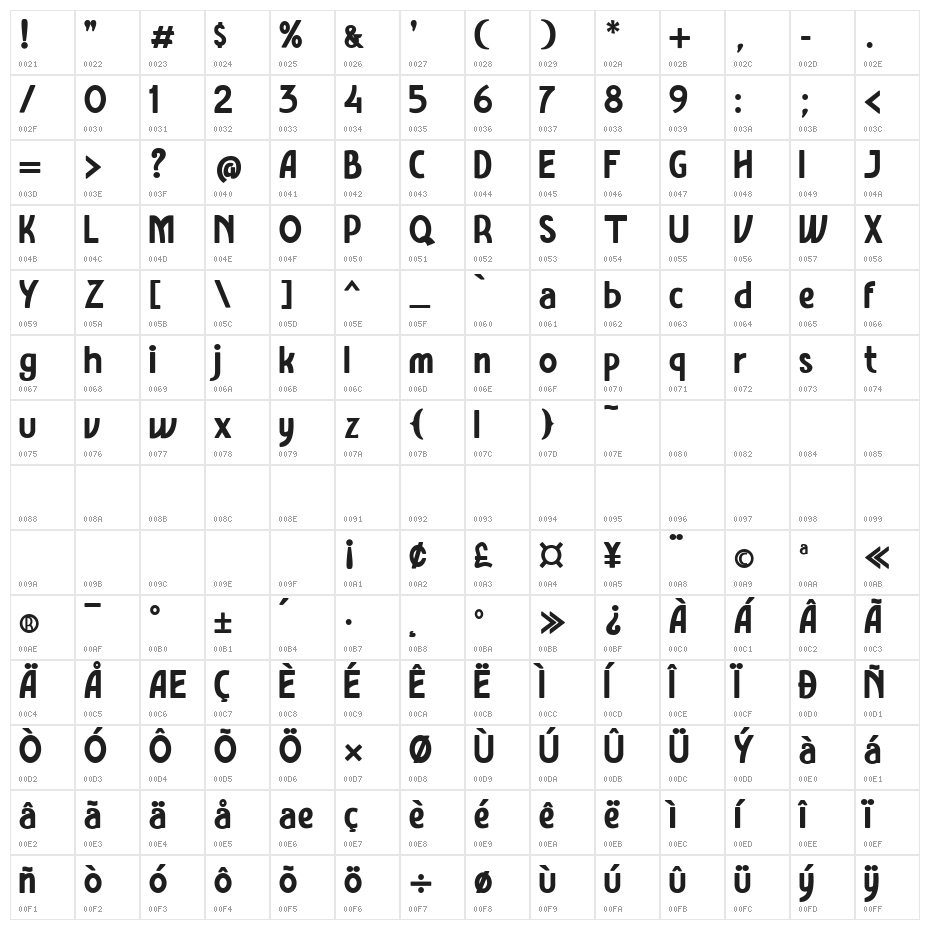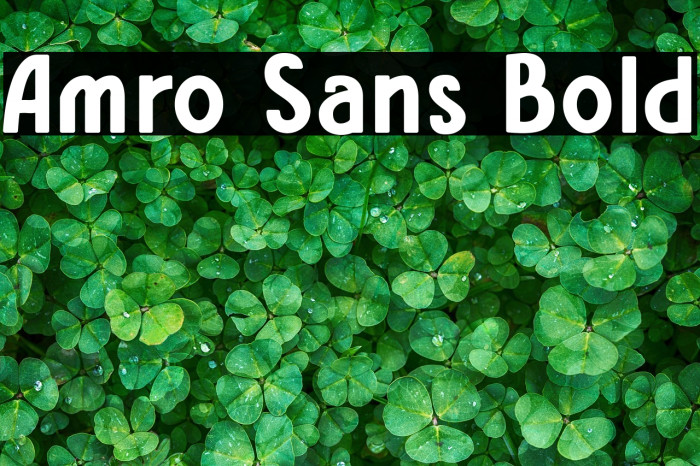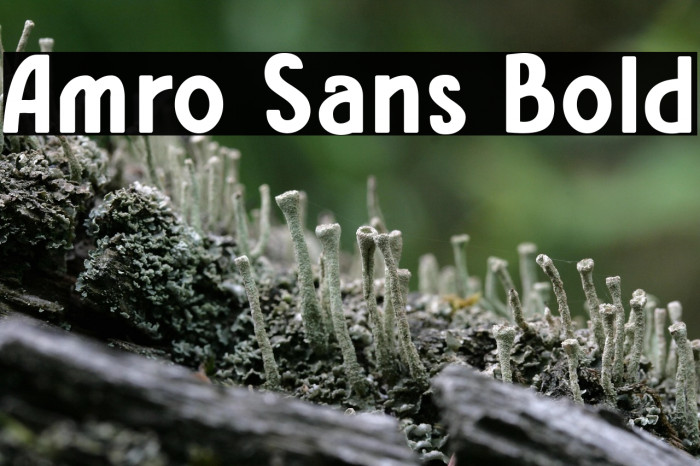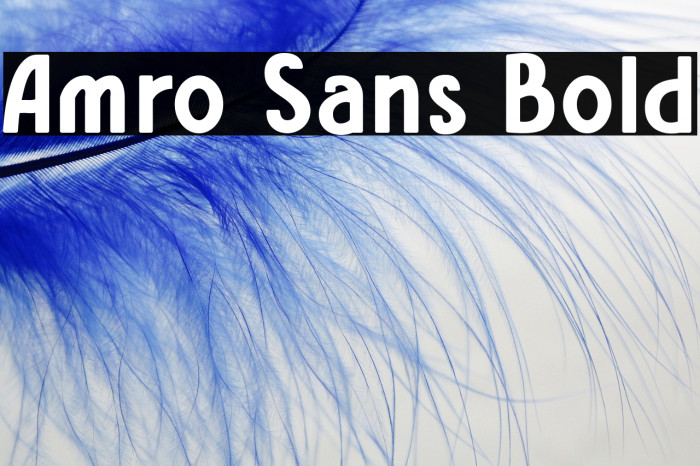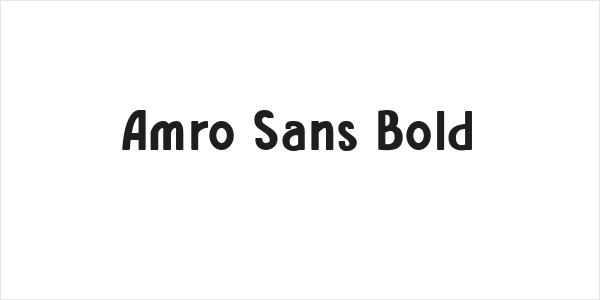
Amro Sans Bold Font
Amro Sans Bold Description
This font features a bold, sans-serif style with a modern and clean appearance. The characters are rounded and slightly condensed, giving it a friendly and approachable feel. The uppercase letters are uniform in height, while the lowercase letters maintain a consistent baseline with a slight variation in ascender and descender lengths. The numerals are clear and legible, matching the overall boldness of the alphabet. Special characters are well-integrated, maintaining the same visual weight and style as the letters and numbers. This font is versatile, suitable for both digital and print media.